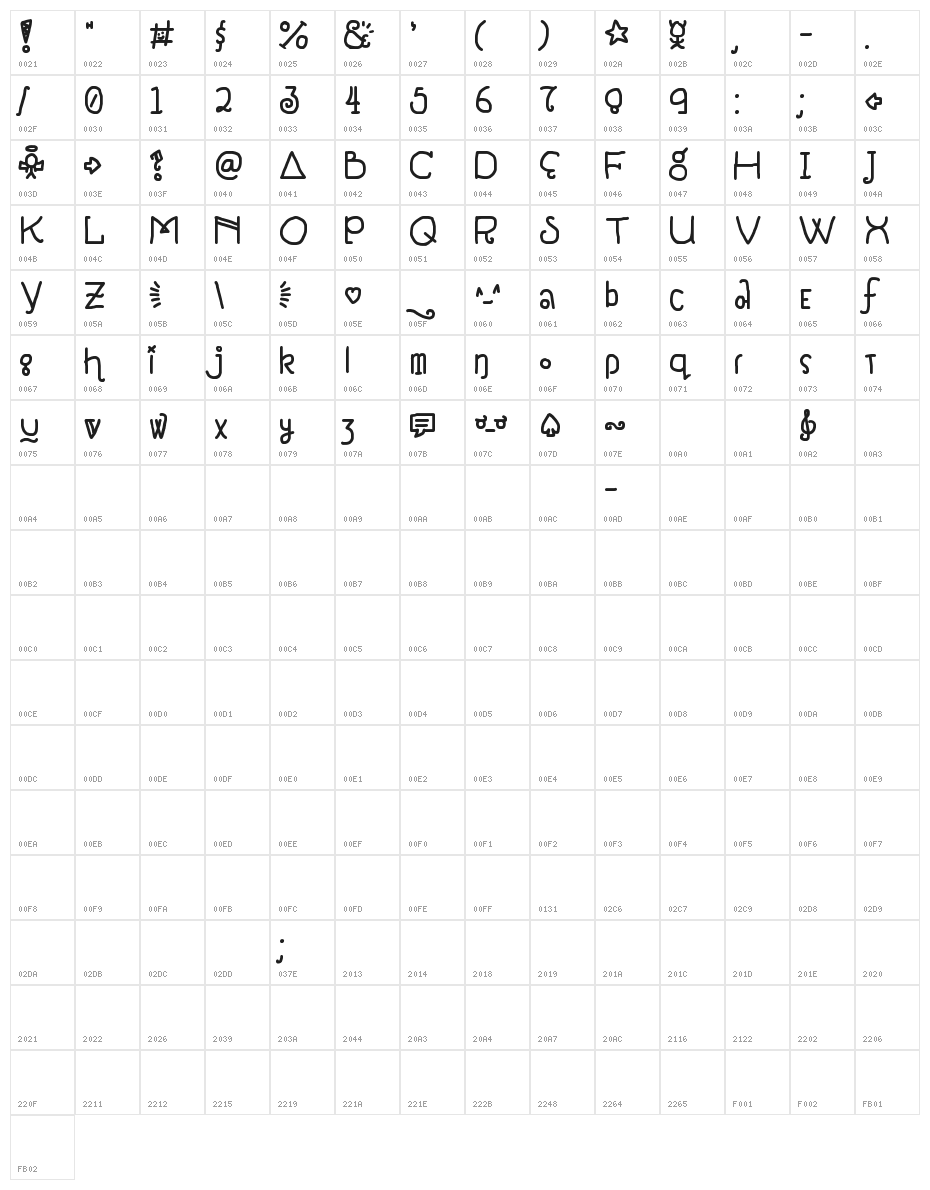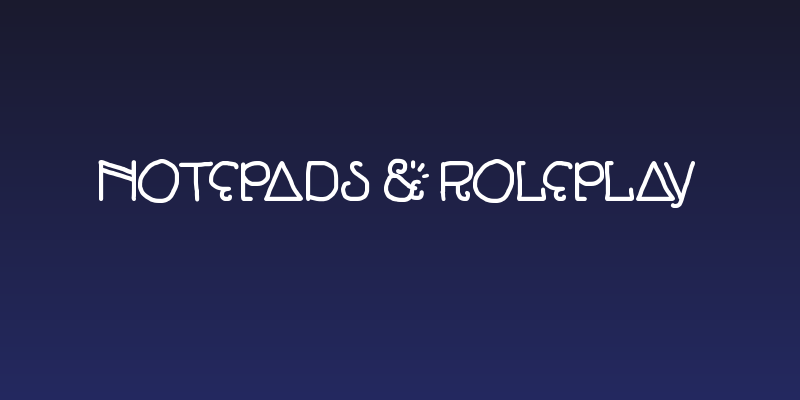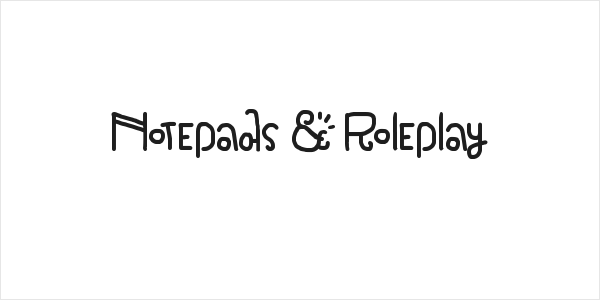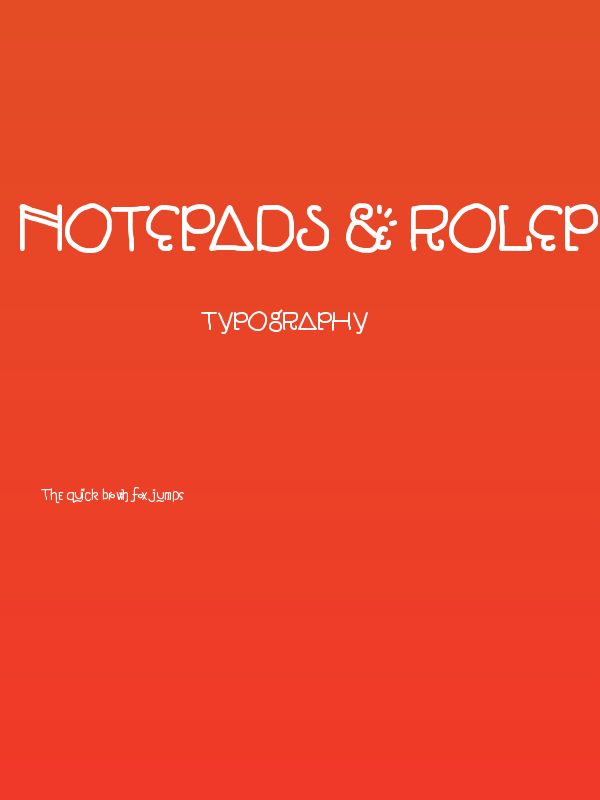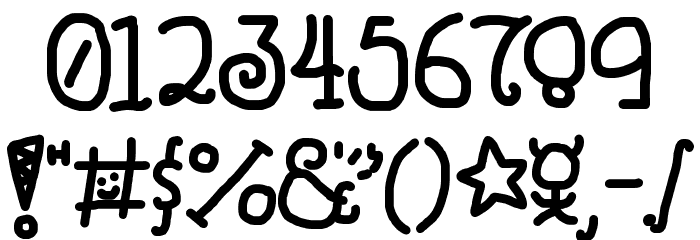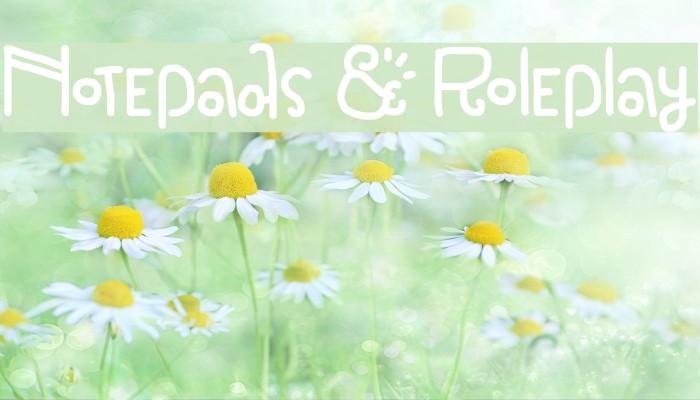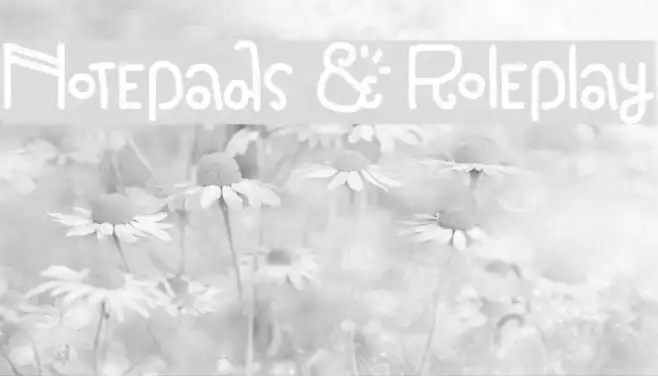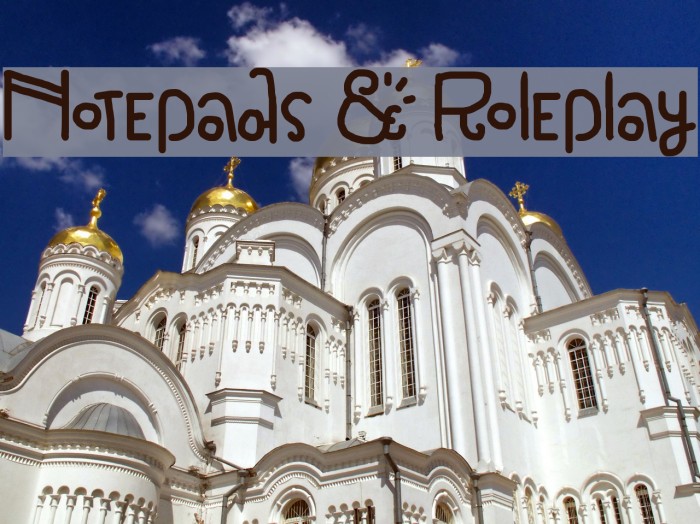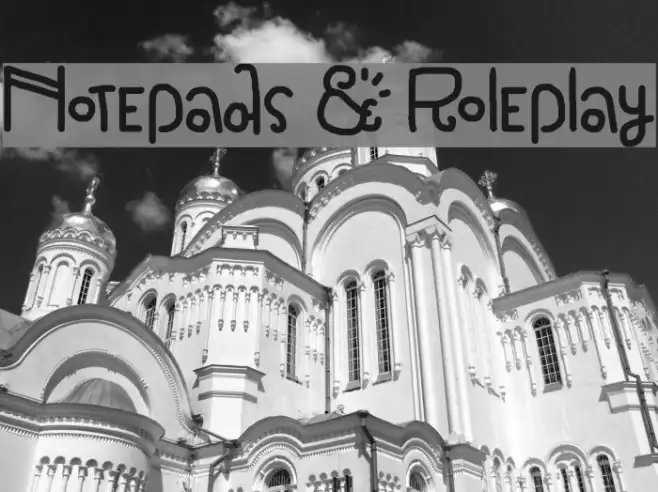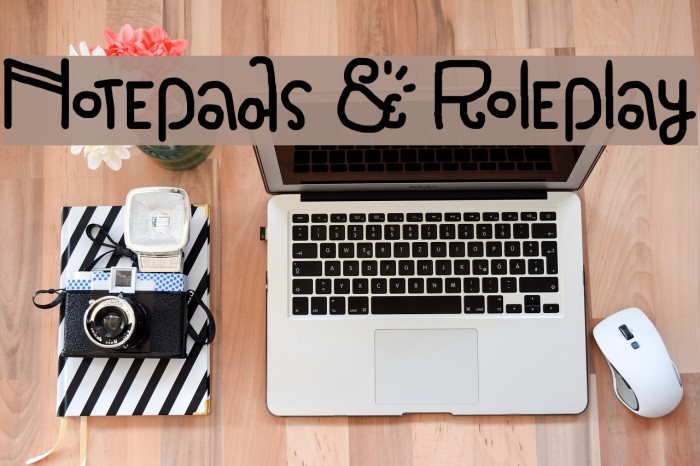
Notepads & Roleplay Font
Notepads & Roleplay Description
This font features a playful and quirky design with a hand-drawn aesthetic. The characters are bold and rounded, giving a whimsical and informal feel. The uppercase letters have a unique geometric influence, while the lowercase letters maintain a consistent playful style. Numbers and special characters are equally stylized, adding to the font's overall charm. The font's design is reminiscent of doodles or casual handwriting, making it suitable for creative and artistic projects.